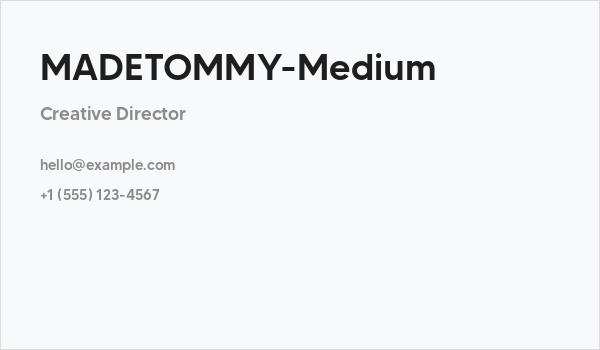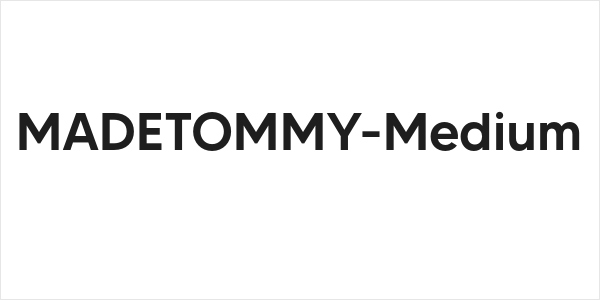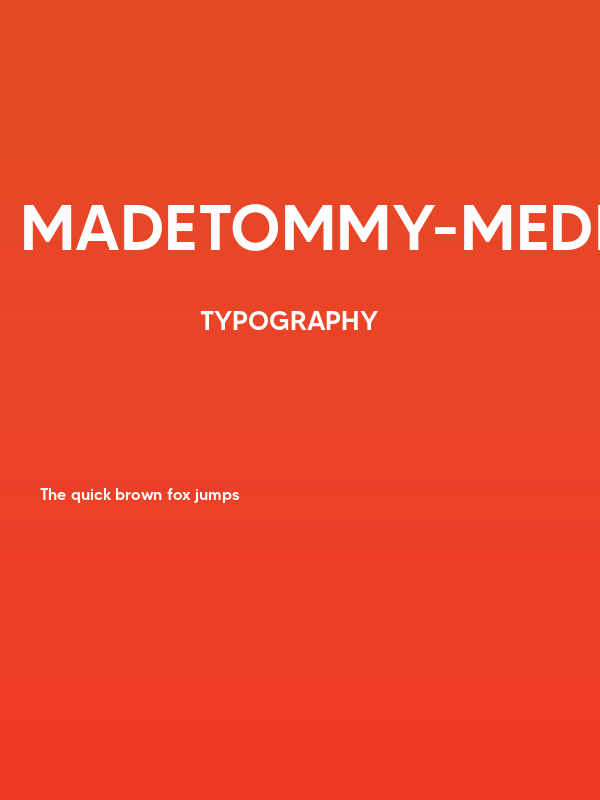
MADETOMMY-Medium Font
MADETOMMY-Medium Description
This font features a clean and modern sans-serif style with uniform stroke widths, offering a sleek and contemporary appearance. The characters are well-proportioned and balanced, providing excellent readability. The uppercase and lowercase letters maintain a consistent design, with rounded edges that add a touch of softness to the overall look. The numerals are clear and distinct, making them ideal for various applications. Special characters are included, enhancing the font's versatility. Its simplicity and clarity make it suitable for a wide range of design projects.
| Proposed Projects | Ideal for branding, web design, advertising, and editorial projects. |